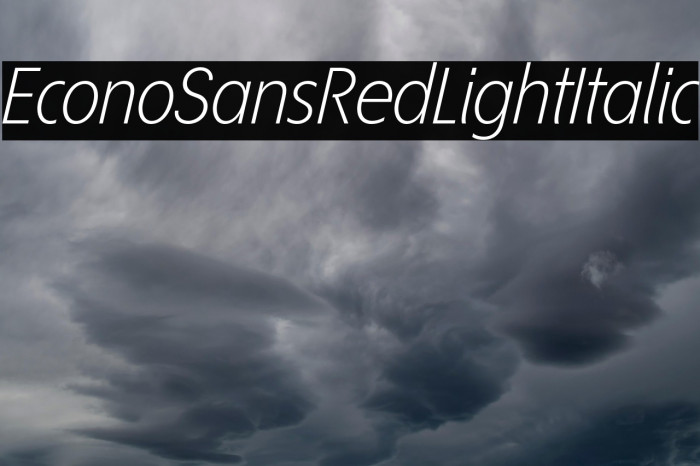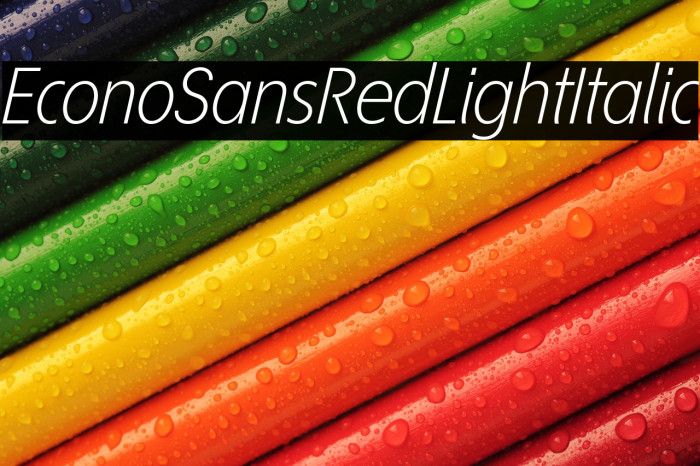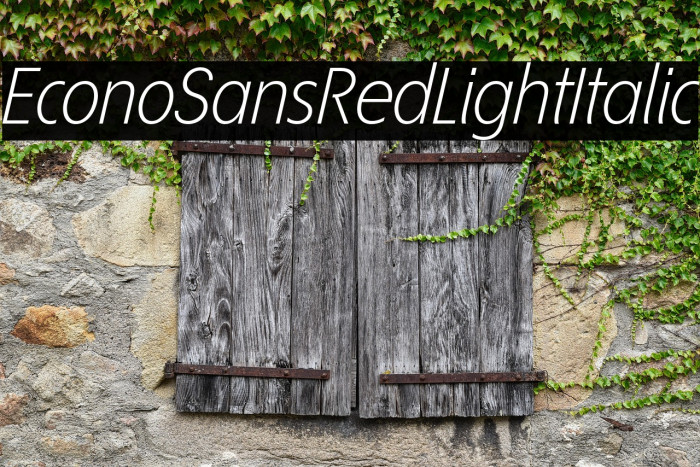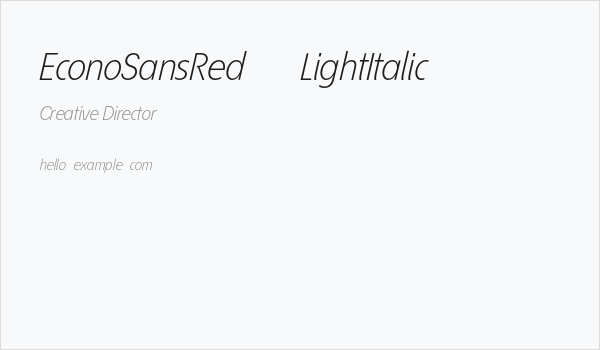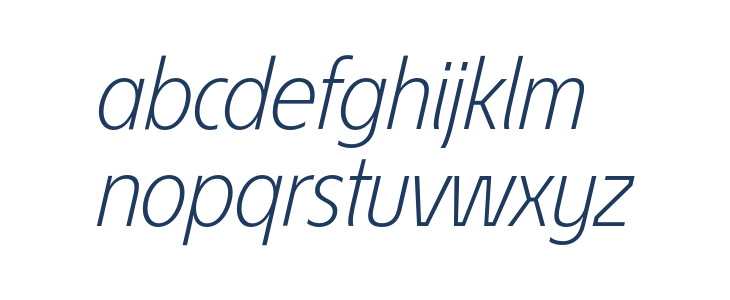
EconoSansRed-46LightItalic Font
EconoSansRed-46LightItalic Description
This font features a sleek and modern sans-serif design with a light weight and italic style. The characters are elegantly slanted, providing a sense of motion and fluidity. The uppercase and lowercase letters maintain a consistent height, contributing to a harmonious appearance. The font's clean lines and minimalistic approach make it highly versatile for various design applications. Its geometric shapes and uniform stroke widths offer a contemporary look, while the subtle curves add a touch of sophistication. The spacing between characters is balanced, ensuring readability and clarity in both small and large sizes.
| Proposed Projects | Ideal for branding, editorial design, digital interfaces, and advertising materials. |